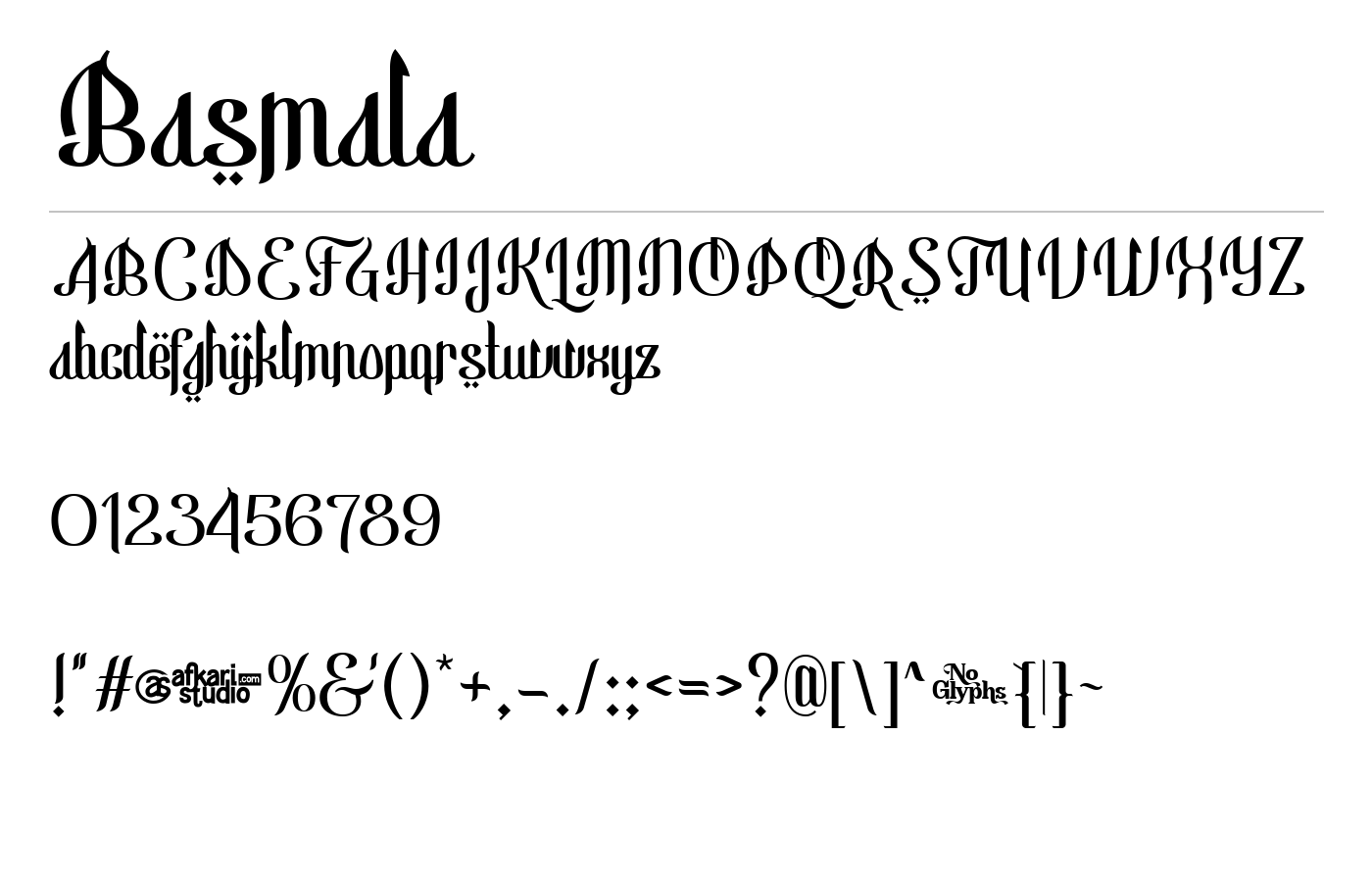
Basmala is a unique serif font with a decorative, calligraphic style that blends traditional elegance with a hint of gothic influence. Its tall, narrow letterforms and moderate stroke contrast give it a refined yet distinctive presence, making it ideal for luxury branding, elegant logos, and sophisticated headlines. The font’s intricate details and artistic flair evoke a sense of heritage and craftsmanship, perfect for projects seeking a blend of classic beauty and bold personality.
Basmala Font
About Basmala Font
| Font family | Basmala Font |
| Designer | Musthafa Kamal Emje |